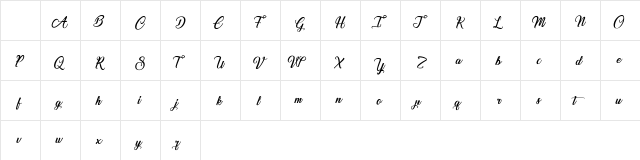
Special Valentine is a composed and adaptable typeface that performs quietly and consistently across a wide range of design contexts. The slanted form adds forward momentum and visual energy.
Pro Tip: Use Special Valentine for emphasis, pull quotes, and subheadings where its slanted energy can add rhythm to the layout.